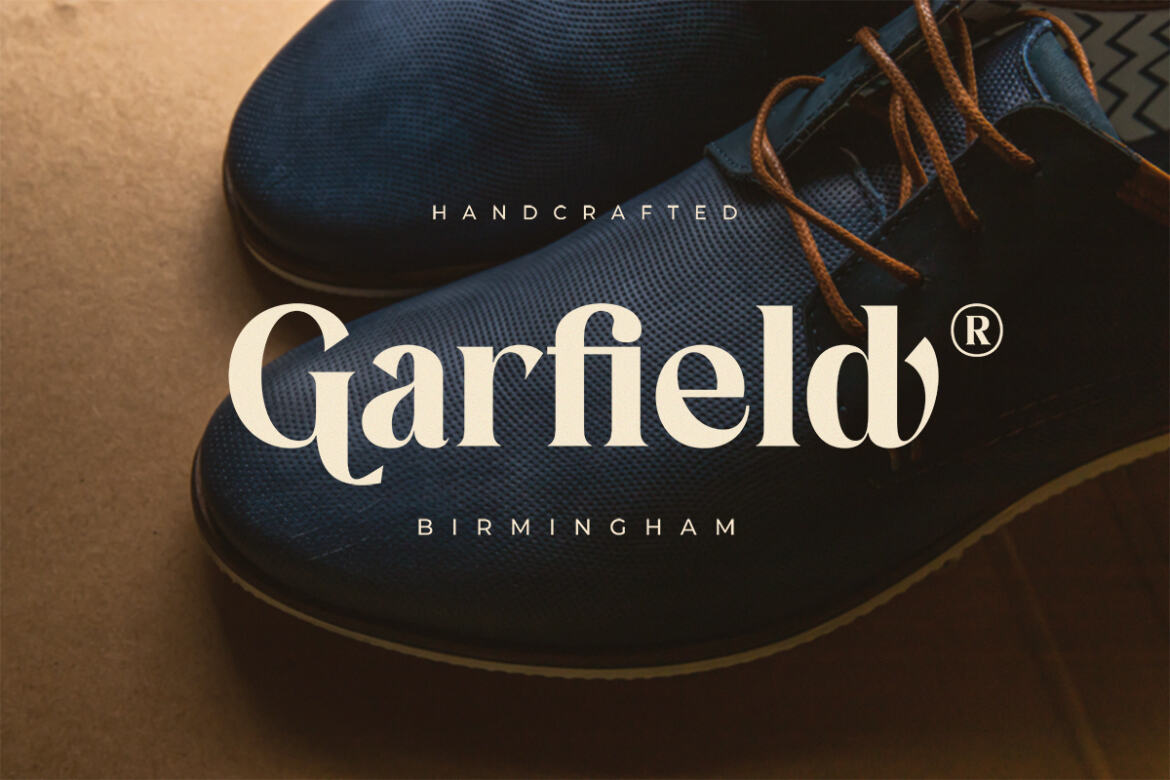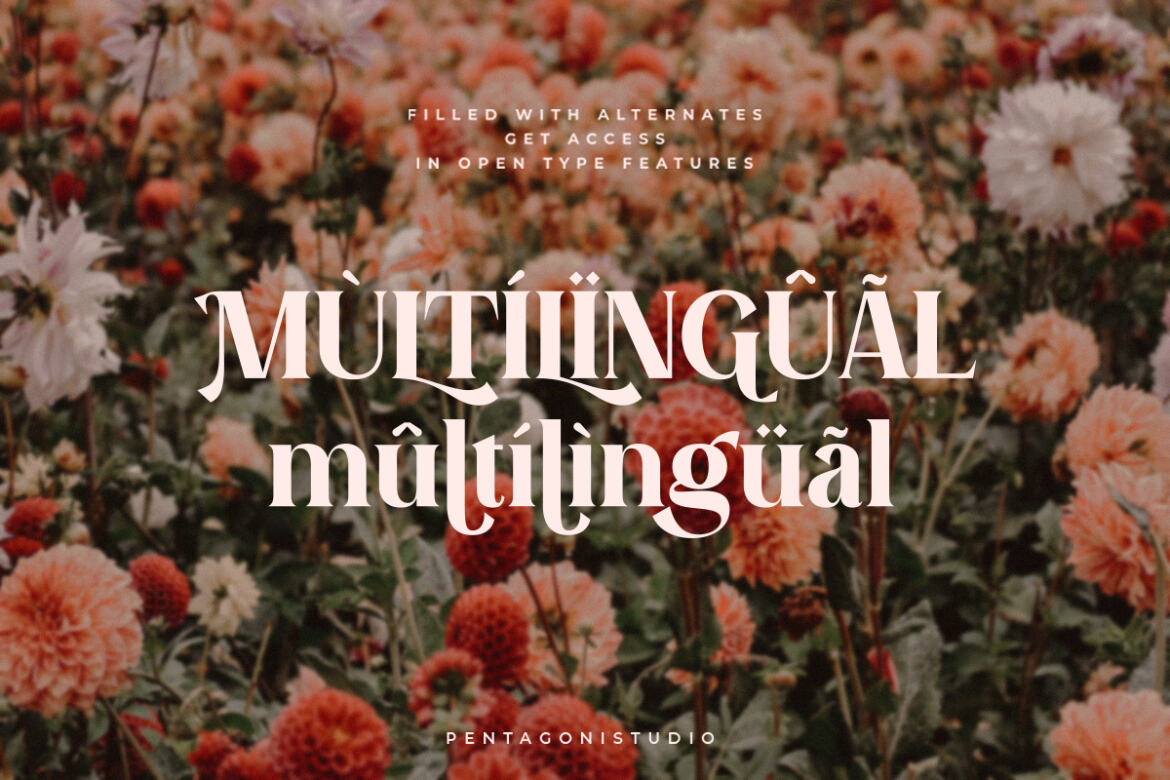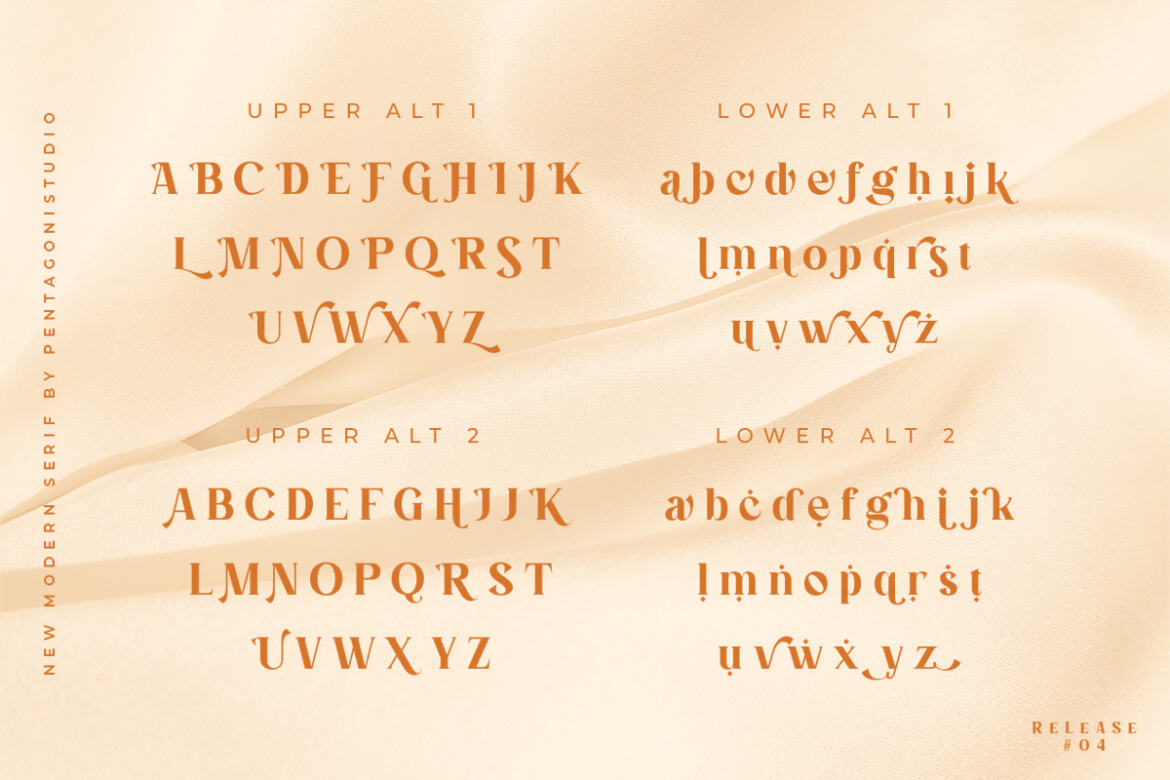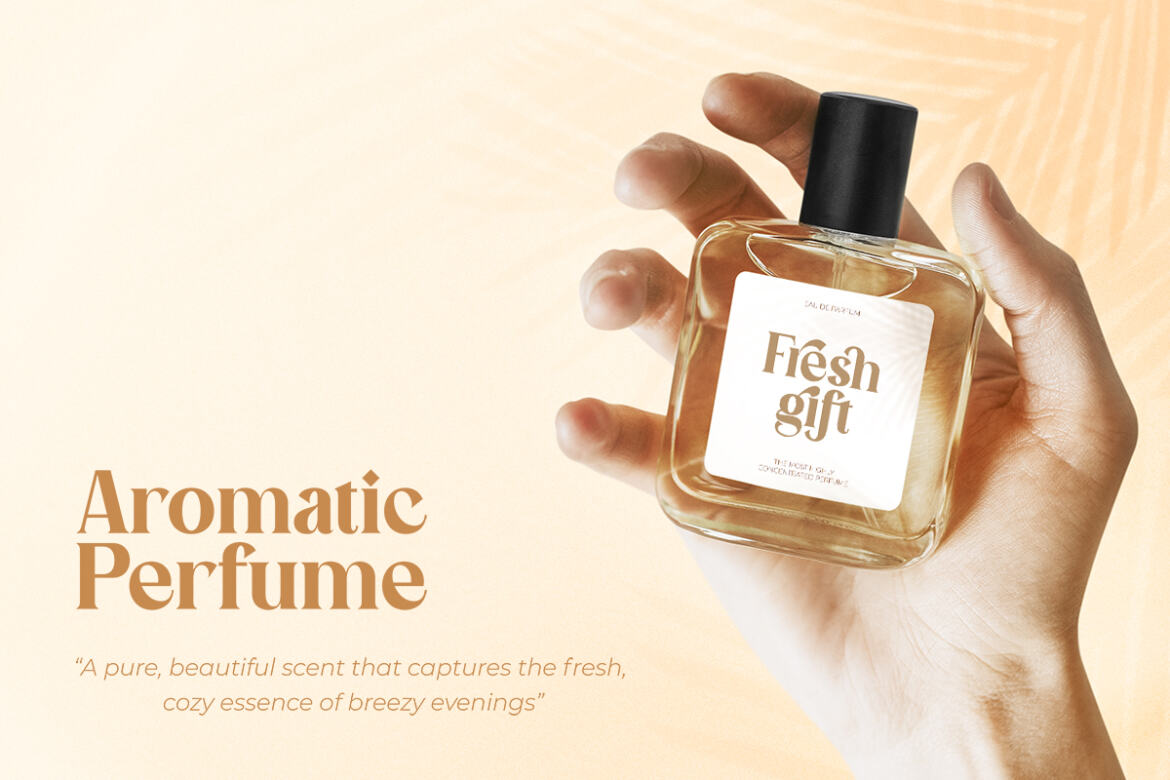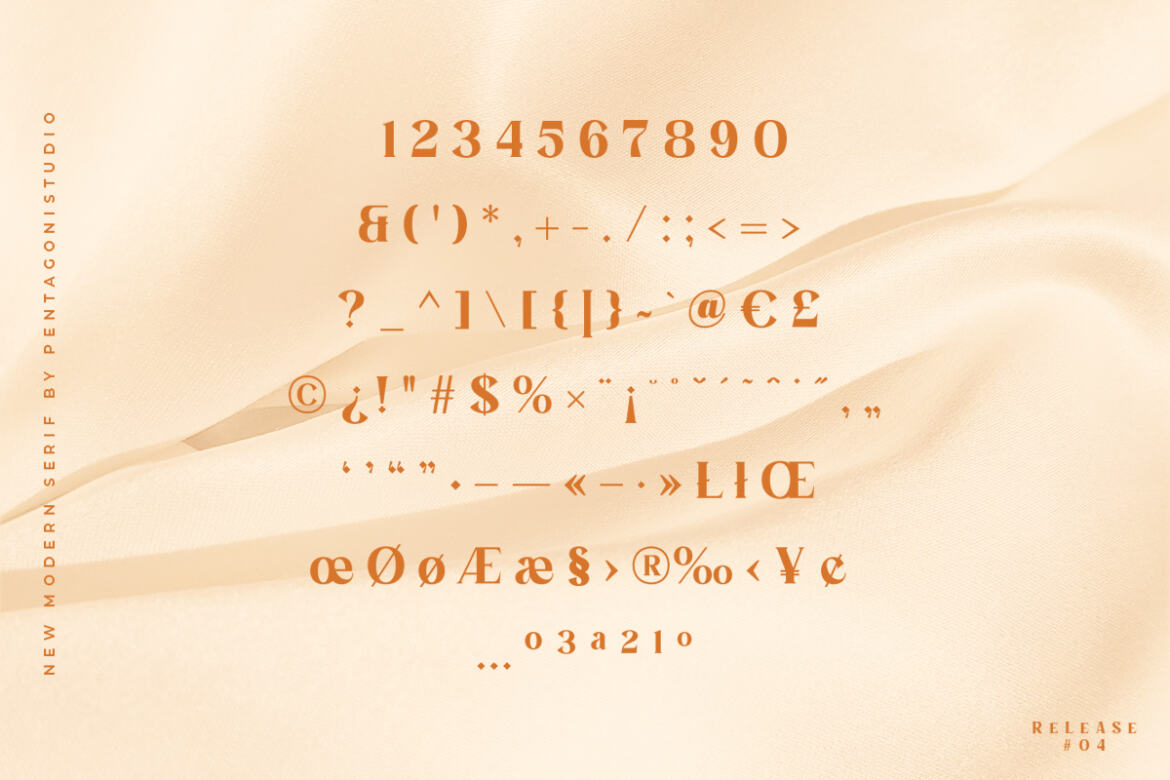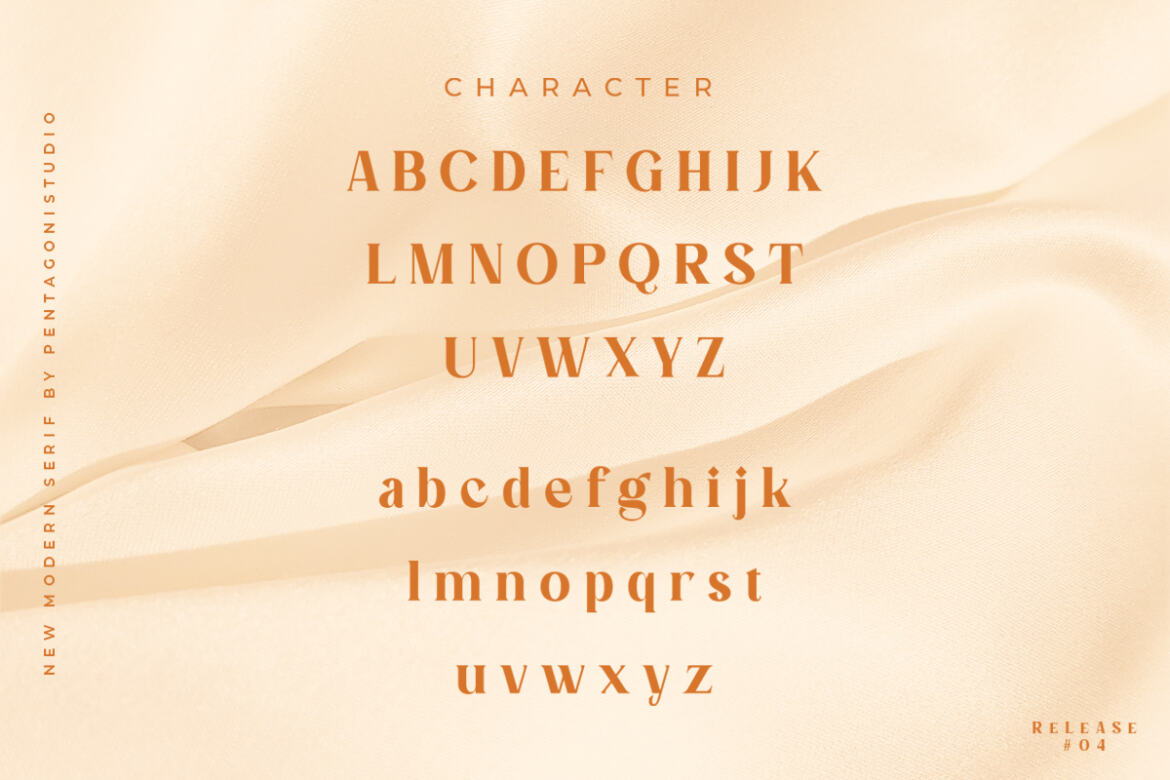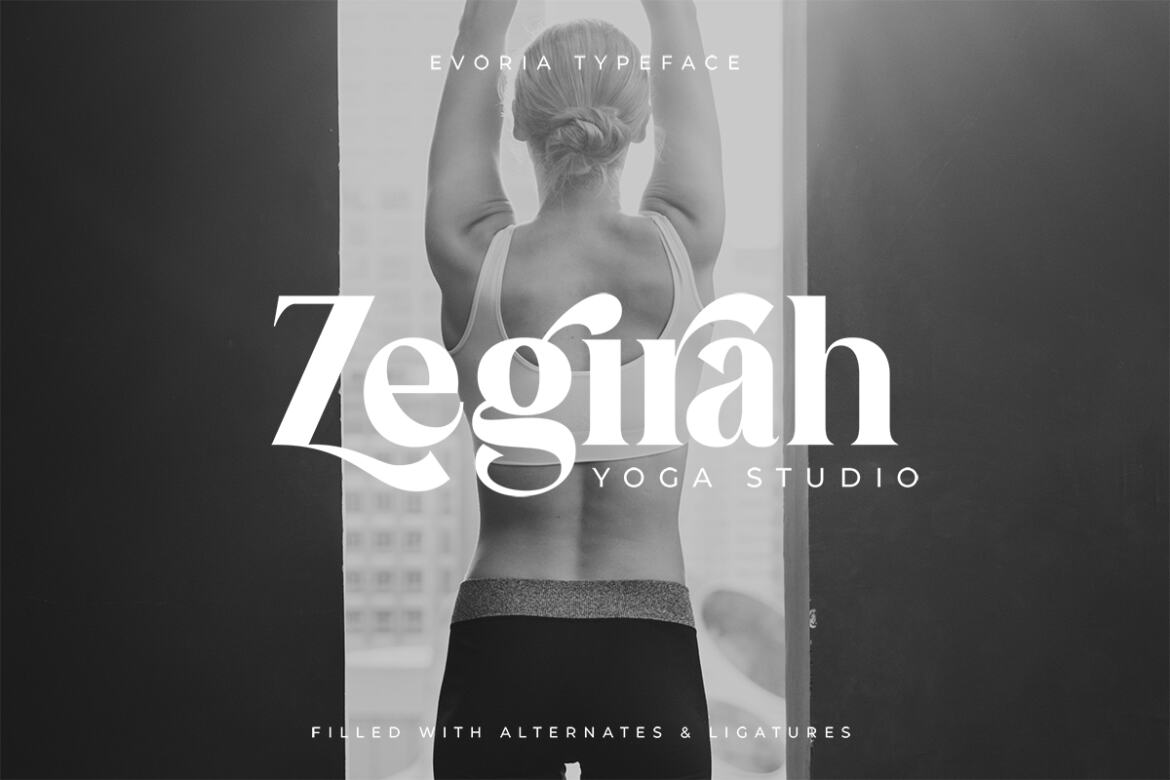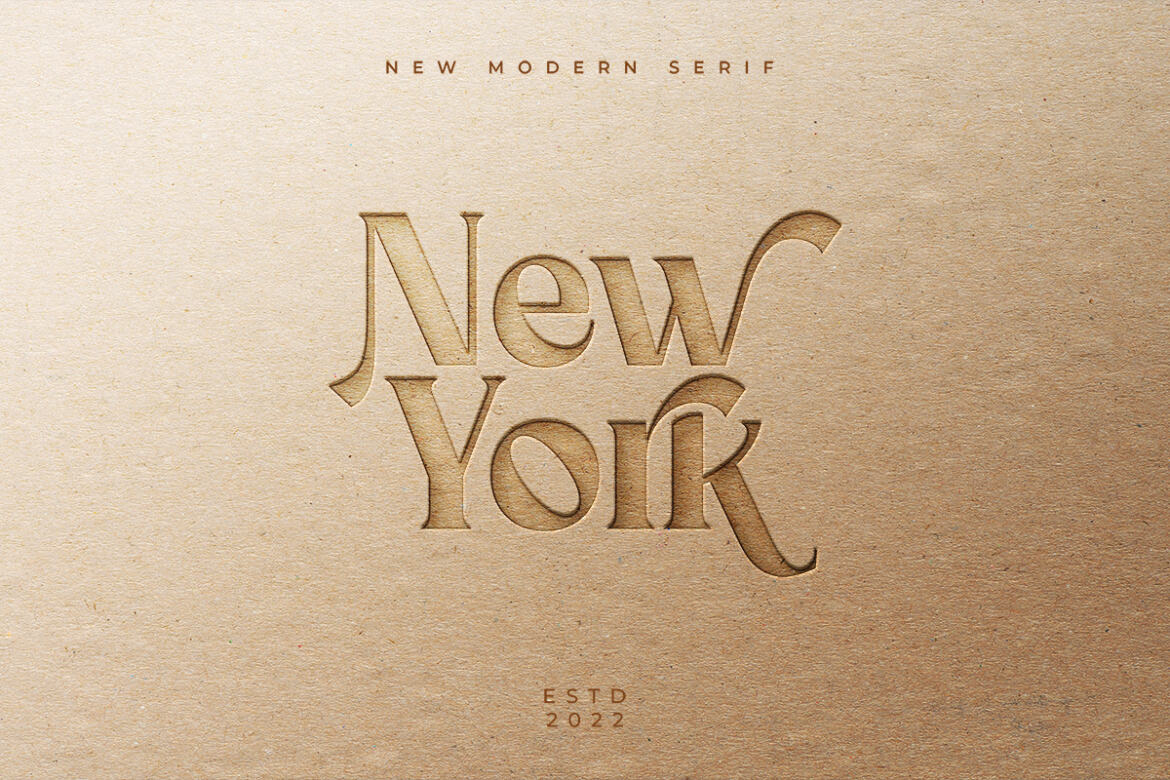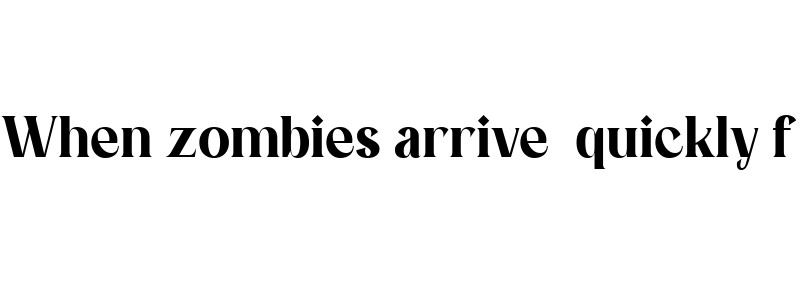
Evoria FREE Demo Font
Evoria Is An Modern Stylish Font Inspired By Elegant Modern Stylish Serif.
Font Features :
• • alternates
• • ligatures
• • multilingual
• • numbers and punctuation
• • uppercase & lowercase